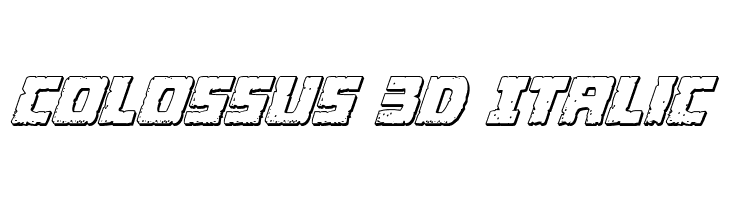
A bold, geometric font with a modern, futuristic style.
A bold, condensed, and geometric font with a modern aesthetic.
A bold, geometric font with a futuristic and modern aesthetic.
A bold, italicized font with a modern, geometric style.
A bold, geometric font with a futuristic and technical design.
A bold, modern font with geometric shapes and rounded corners.
A bold, geometric font with a futuristic and tech-inspired design.
A bold, italic, and condensed font with a modern and dynamic style.
A bold, italicized, and modern font with a sleek, geometric design.
A modern, bold, and italic font with a condensed and geometric style.